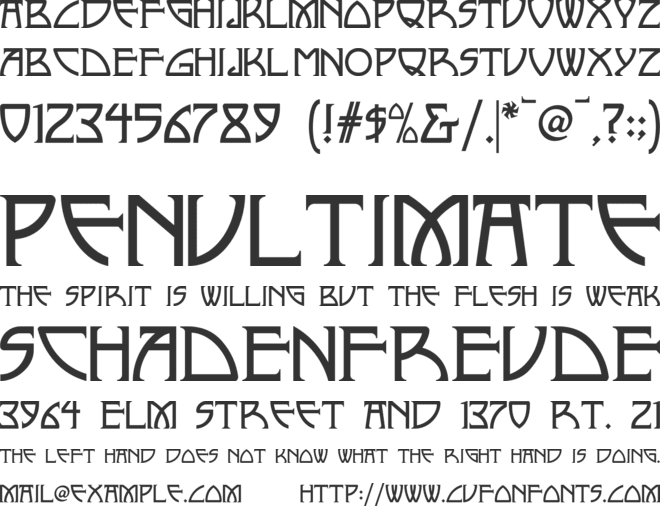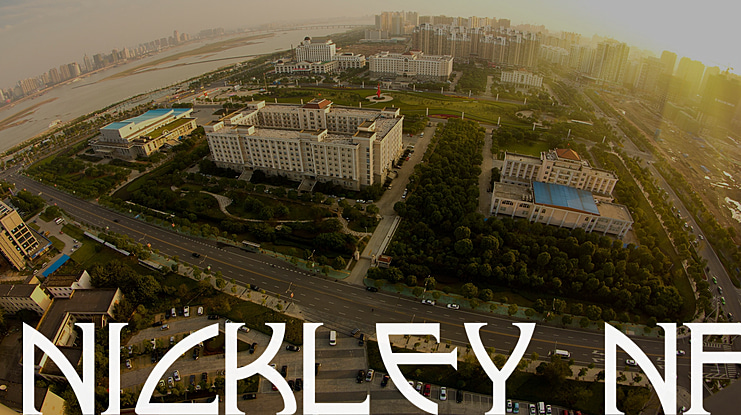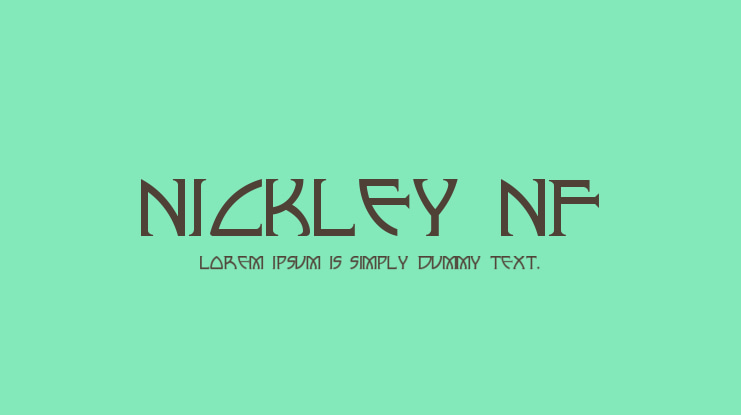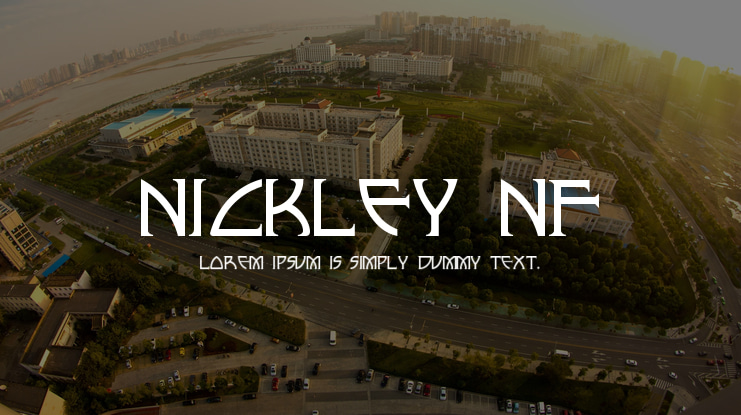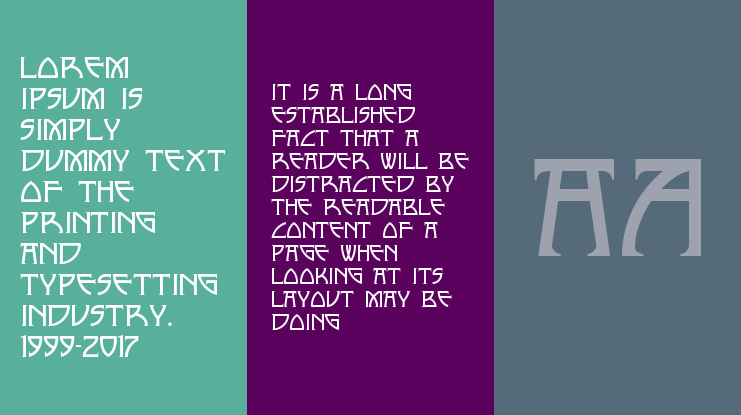
Nick Curtis
The name is a tribute to Gustav Stickley and the Arts and Crafts movement. The letterforms are adapted from fonts created by Dard Hunter (1883-1966) for Roycrofters Publications.